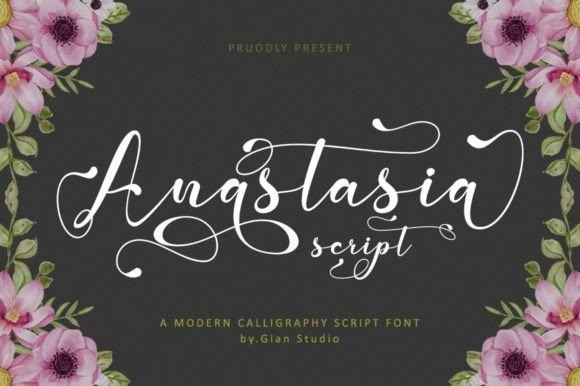
Anastasia Typeface
Anastasia Typeface, is a modern calligraphy font with the current handwriting style, this font is perfect for branding, wedding invites, magazines, mugs, business cards, quotes, posters, and more.